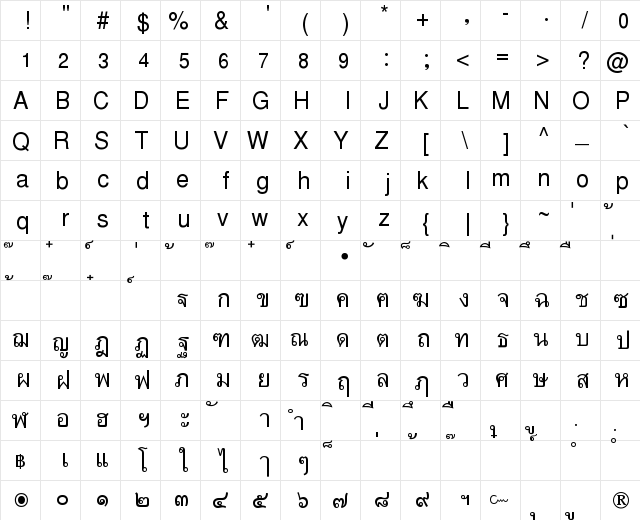
PWThaiMonospacedEG Regular Font Preview
PWThaiMonospacedEG Regular
Design Context for PWThaiMonospacedEG Typeface
PWThaiMonospacedEG uses fixed-width spacing throughout, giving it the structured, systematic character associated with coding environments and technical documentation.
Pro Tip: Use PWThaiMonospacedEG with slightly increased line-height for extended reading — fixed-width spacing can feel dense in longer passages without extra breathing room.